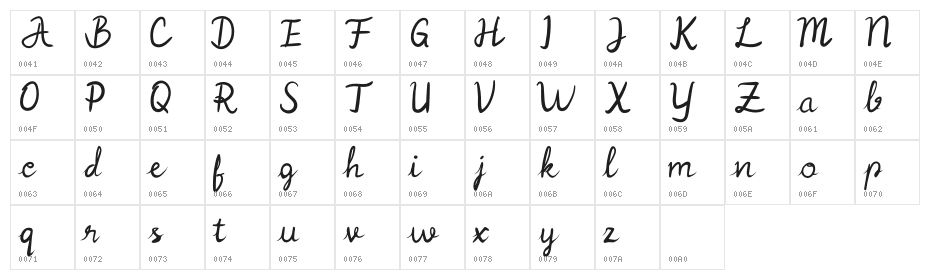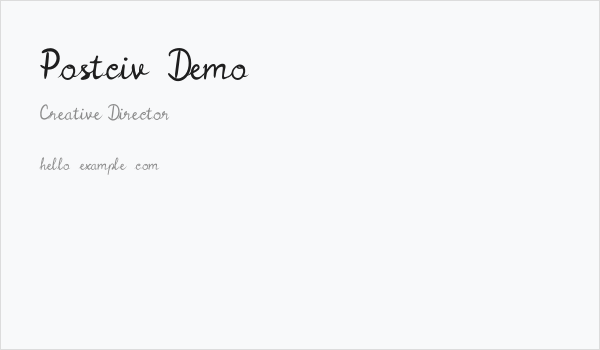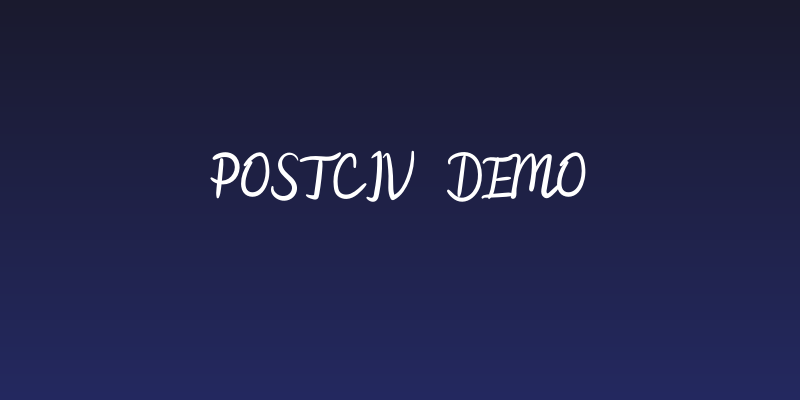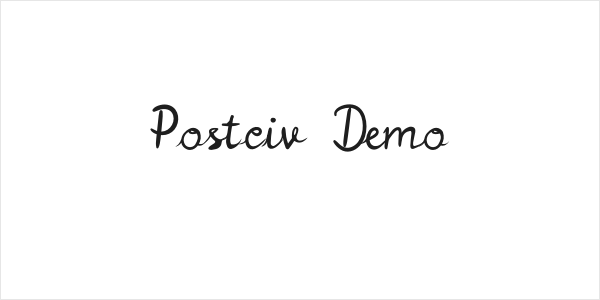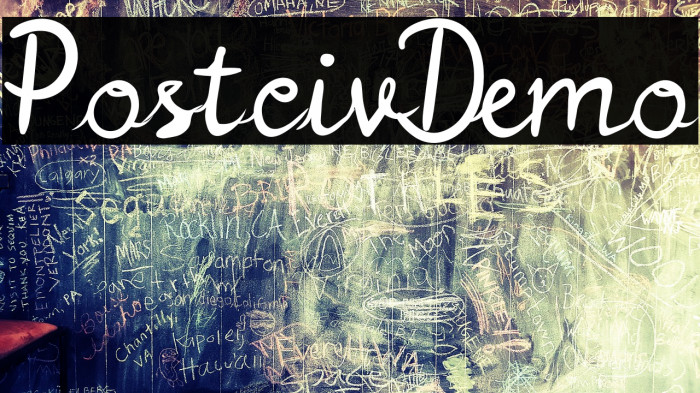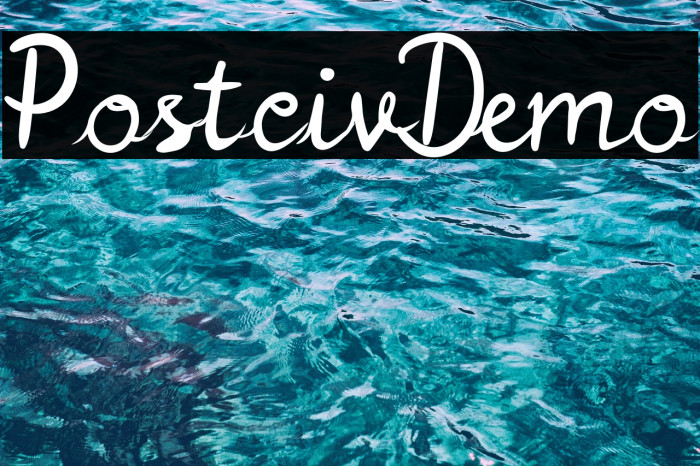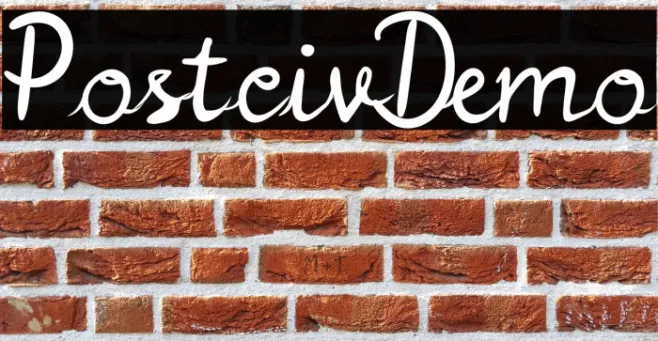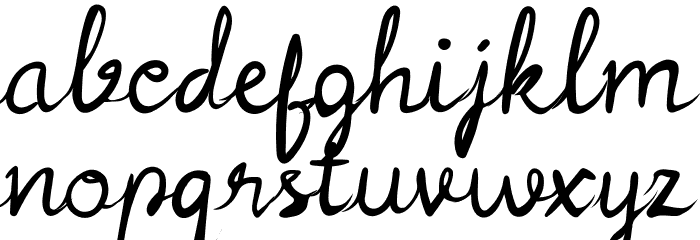
Postciv-Demo Font
Postciv-Demo Description
This font features a lively and flowing script style, characterized by its smooth, connected strokes and elegant curves. The uppercase letters exhibit a graceful and slightly whimsical flair, while the lowercase letters maintain a consistent rhythm and fluidity. The overall appearance is both sophisticated and approachable, making it suitable for a variety of creative applications. The font's design emphasizes readability while retaining a distinct personality, with moderate contrast in stroke thickness that adds to its dynamic nature. Its handwritten quality evokes a sense of warmth and personal touch, ideal for projects that require a humanistic and inviting feel.
| Overall Style | Handwritten |
| Proposed Projects | Ideal for wedding invitations, greeting cards, personal branding, and creative projects that require a personal touch. |
| Author | Fonts by william jhordy |